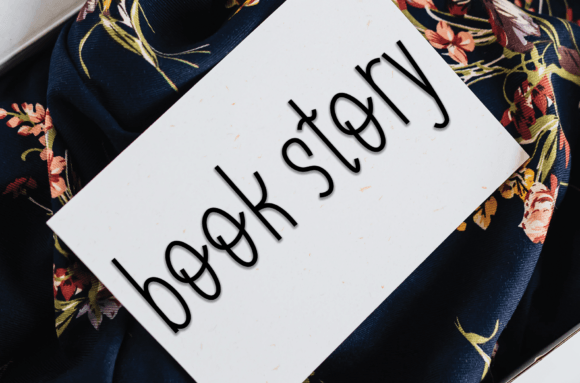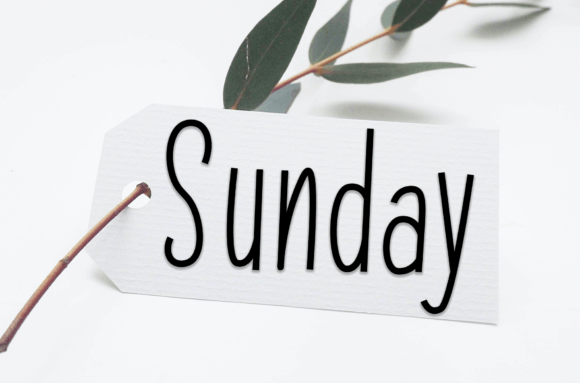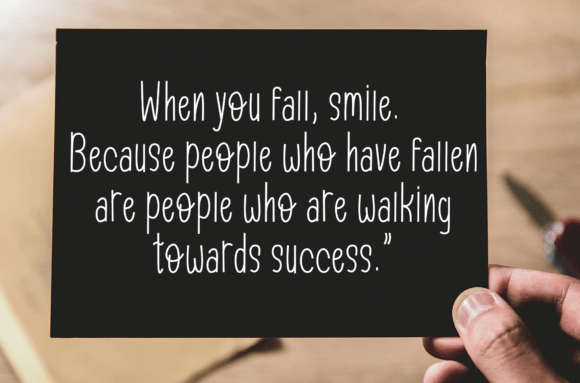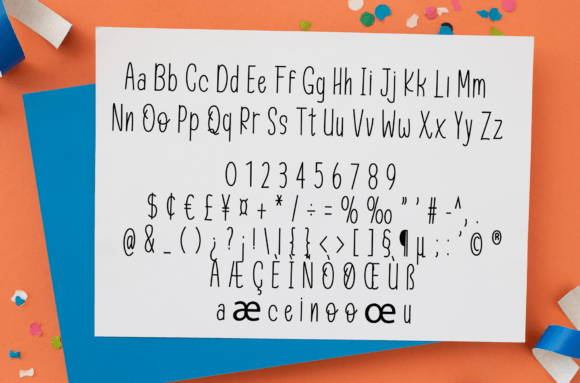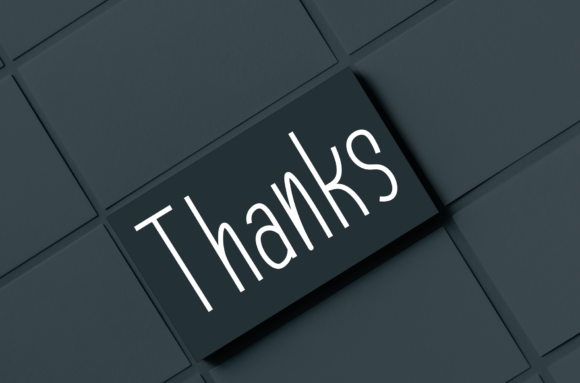
Introduction to Note Pencil Font
Note Pencil is a cool, simple, and playful handwritten font.
Incredibly versatile, this font fits a wide pool of designs, elevating them to the highest levels Add this font to your favorite creative ideas and notice how it makes them come alive.
Key Features of Note Pencil Font
Why Choose Note Pencil Font?